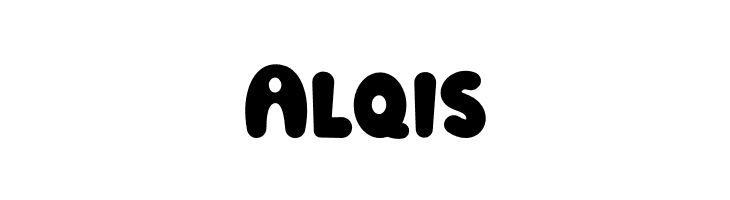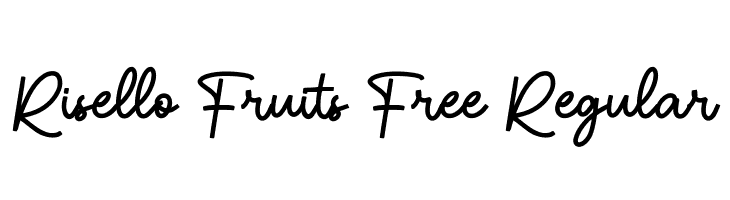
( Fonts by Hamsah )
A playful, bold font with rounded, bubble-like characters.
( Fonts by Dieter Schumacher )
A bold, geometric outline font with sharp angles and a futuristic style.
( Fonts by Khurasan )
A playful, handwritten-style font with bold, rounded characters.
A decorative font with bold letters integrated with sunflower illustrations.
A sleek, condensed italic font with a modern, dynamic style.
A playful, casual handwritten font with dynamic strokes and a lively appearance.
( Fonts by Scott Dieznyik - Kejak (formerly Cheops) )
A bold, futuristic font with geometric shapes and sharp angles.
( Fonts by junkohanhero )
A bold, distressed font with a textured, grunge aesthetic.